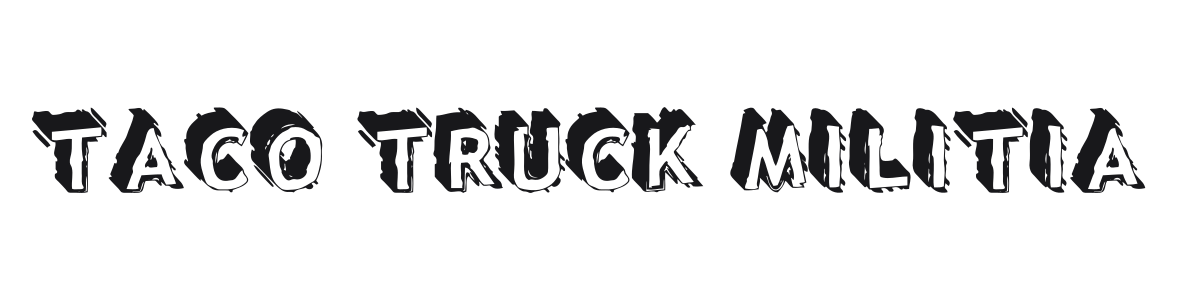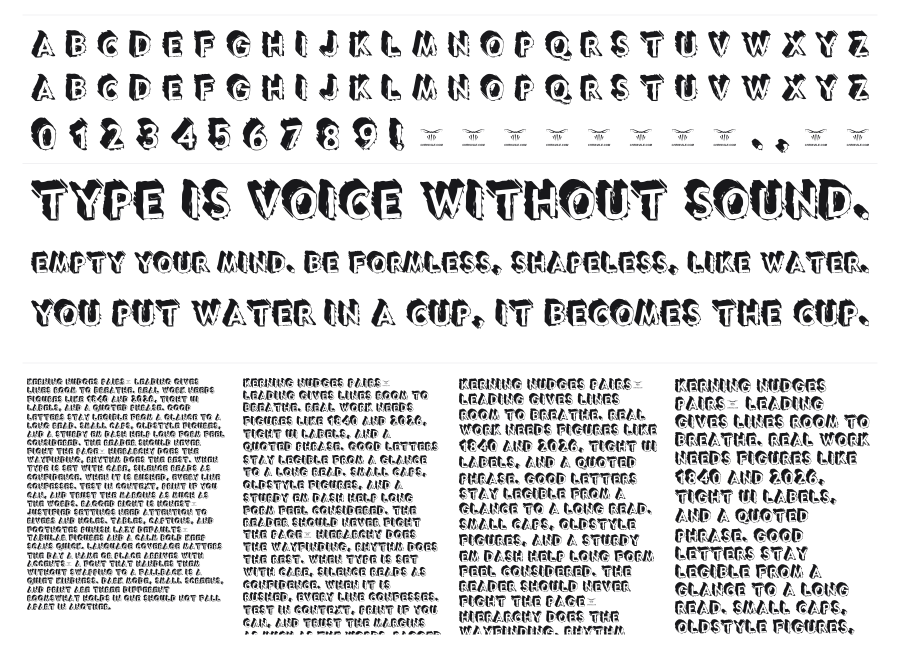
Taco Truck Militia
Taco Truck Militia is a bold, uppercase display face from Chris Vile with heavy letterforms that look like they've been stamped hard and left to weather. The rough, gritty texture gives every character a worn-in, street-level quality that feels more earned than manufactured. Built for headlines, gig posters, and anything that needs to hit with raw, no-polish energy.